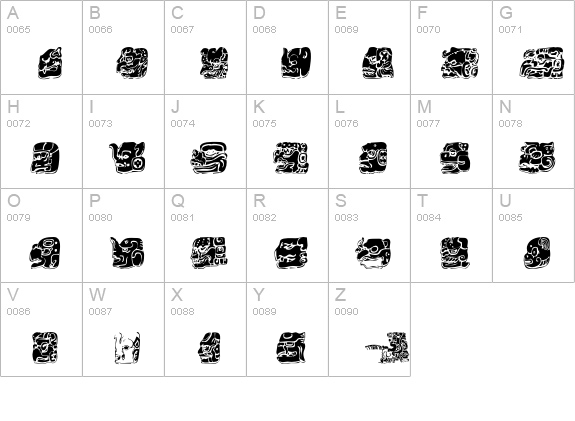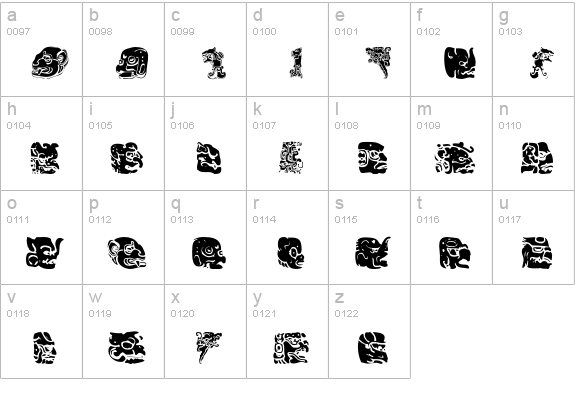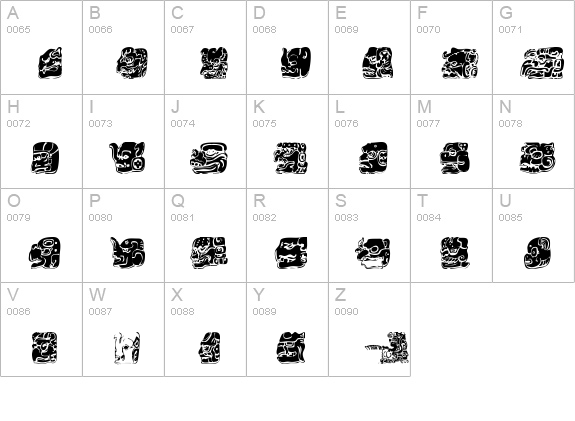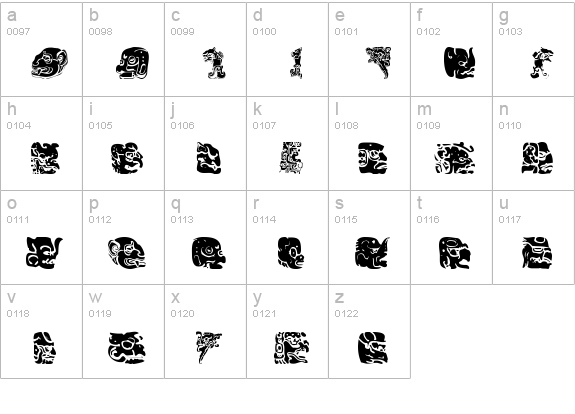
MayaSigns Font Details
MayaSigns font is a beautifully crafted typeface that embodies elegance and sophistication. With its intricate details and artistic flair, this font is perfect for adding a touch of class to any project. The graceful curves and unique design elements of MayaSigns font make it stand out from the crowd and give your text a refined look. What sets MayaSigns font apart is not just its aesthetic appeal, but also its versatility. Whether you're designing a logo, creating a wedding invitation, or crafting a social media post, this font will elevate your work to the next level. And the best part? MayaSigns font is completely free to download at FontsMarket.com. Yes, that's right - you can get your hands on this stunning font without spending a penny. So why wait? Give your designs a touch of elegance with MayaSigns font today!